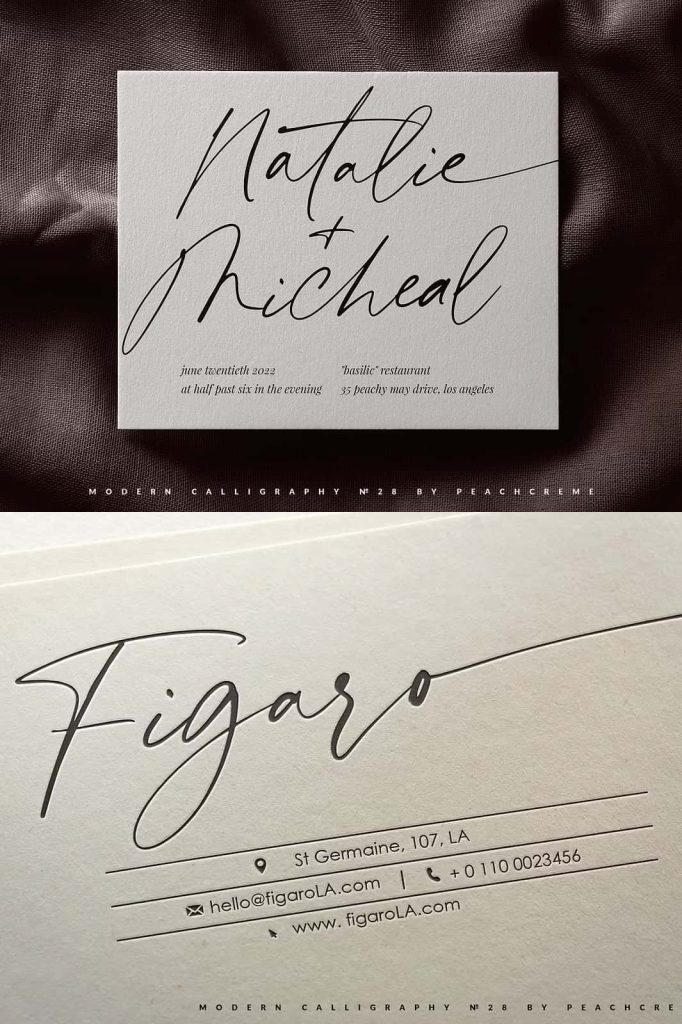
Blackstone Modern Calligraphy Font
A Stylish Calligraphy Font with Casual Chic Appeal
Blackstone is a modern calligraphy font that blends expressive handwritten strokes with a refined, stylish finish. Designed to feel natural yet confident, this typeface delivers a casual chic flair that immediately adds personality and warmth to any design. Its flowing letterforms capture the beauty of hand-drawn calligraphy while maintaining enough structure to feel polished and intentional.
Unlike overly formal script fonts, Blackstone feels relaxed and contemporary. The strokes move smoothly across the baseline, creating rhythm and visual harmony without appearing rigid or forced. This balance makes Blackstone especially appealing for designers who want elegance without stiffness and creativity without chaos.
Modern Calligraphy with a Confident and Expressive Voice
Blackstone communicates confidence through its fluid curves and dynamic stroke variations. Each character feels naturally written, as if created with a steady hand and creative intention. The font maintains consistent flow while allowing subtle irregularities that enhance its handwritten authenticity.
This modern calligraphy style helps designs feel personal and inviting. Blackstone brings a human touch to digital and print projects, making it ideal for brands and creatives who want to connect emotionally with their audience. Its casual chic personality supports storytelling, emotion, and visual charm across a wide range of applications.
Designed to Feel Handcrafted and Refined
Blackstone was crafted to capture the essence of real calligraphy without losing clarity or usability. The letterforms feature smooth connections and well-balanced spacing, ensuring that words remain legible while still expressing movement and elegance. This handcrafted feeling elevates designs by adding depth and authenticity.
The refined details within the strokes give Blackstone a premium appearance. This makes the font suitable not only for personal projects but also for professional branding and commercial use where quality and presentation matter.
Perfect for Branding, Invitations, and Creative Design
Blackstone performs exceptionally well in branding projects that require a stylish and approachable identity. When used in logos, it creates a memorable visual signature that feels both modern and timeless. The font’s expressive nature allows brands to project confidence, creativity, and sophistication with ease.
For wedding invitations and event stationery, Blackstone adds romance and elegance without becoming overly decorative. It enhances names, headlines, and key details, helping designs feel personal and thoughtfully crafted. The font also works beautifully on greeting cards, thank-you notes, and custom prints.
Ideal for Labels, Packaging, and Lifestyle Products
Blackstone is an excellent choice for product labels and packaging, especially within lifestyle, food, and beverage industries. Its casual chic calligraphy style pairs beautifully with wine labels, including red wine, where warmth, tradition, and sophistication must coexist. The font helps communicate craftsmanship and quality while remaining visually appealing on shelves.
In addition to wine labels, Blackstone works well for cosmetic packaging, handmade goods, and boutique products. Its elegant flow and modern character add value to packaging designs by creating a sense of authenticity and premium branding.
A Versatile Calligraphy Font for Modern Designers
Blackstone offers designers a versatile modern calligraphy font that adapts easily to both digital and print environments. It performs well on websites, social media graphics, advertisements, and printed materials. The font maintains its charm at various sizes, making it suitable for headlines, short phrases, and decorative text.
By choosing Blackstone, designers gain a calligraphy font that delivers style, emotion, and functionality. Its casual chic flair, elegant movement, and modern sensibility make it a powerful tool for branding, invitations, labels, and creative projects. Blackstone transforms ordinary text into expressive typography that feels confident, personal, and visually captivating.